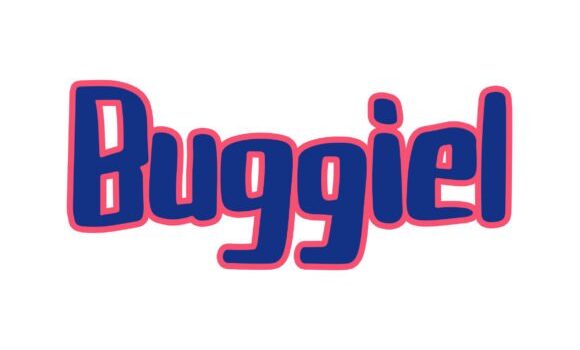
buggiel
Buggiel Font – Free Download Introduction to Buggiel Font Buggiel is a fun and friendly display font with a unique charm. 📸 Preview Gallery 6 images 📌 Product Name Buggiel Font 👤 Author Weape Design 📂 Category Explore ⬇️ Download